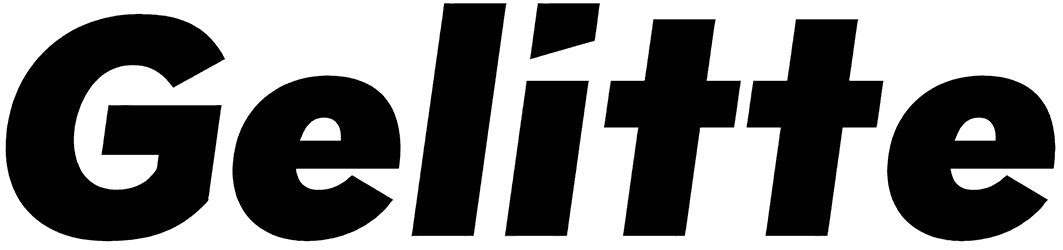
Gelitte Font
There is a simple way to convey a modern and humble vibe to your viewers, using a sans serif font to adorn your words. The Gelitte font is a great item that covers almost all characters, and you can count on it for any topic. Its bold style is nice for headlines or specific words in varied designs like a carwash billboard.